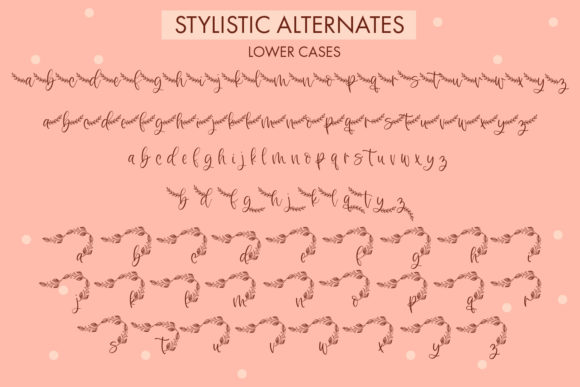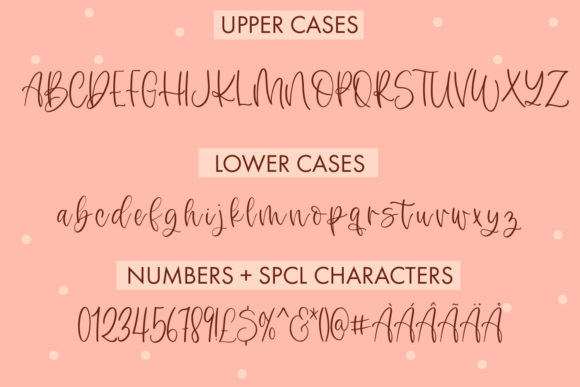
Walnut Moth Font
db-ku.com - Script & Handwritten -- Walnut Moth feels incredibly elegant and flowing. It looks stunning on wedding invitations, thank you cards, quotes, greeting cards, logos, business cards and every other design which needs a handwritten touch. It features a varying baseline, smooth lines, gorgeous glyphs and stunning alternates.